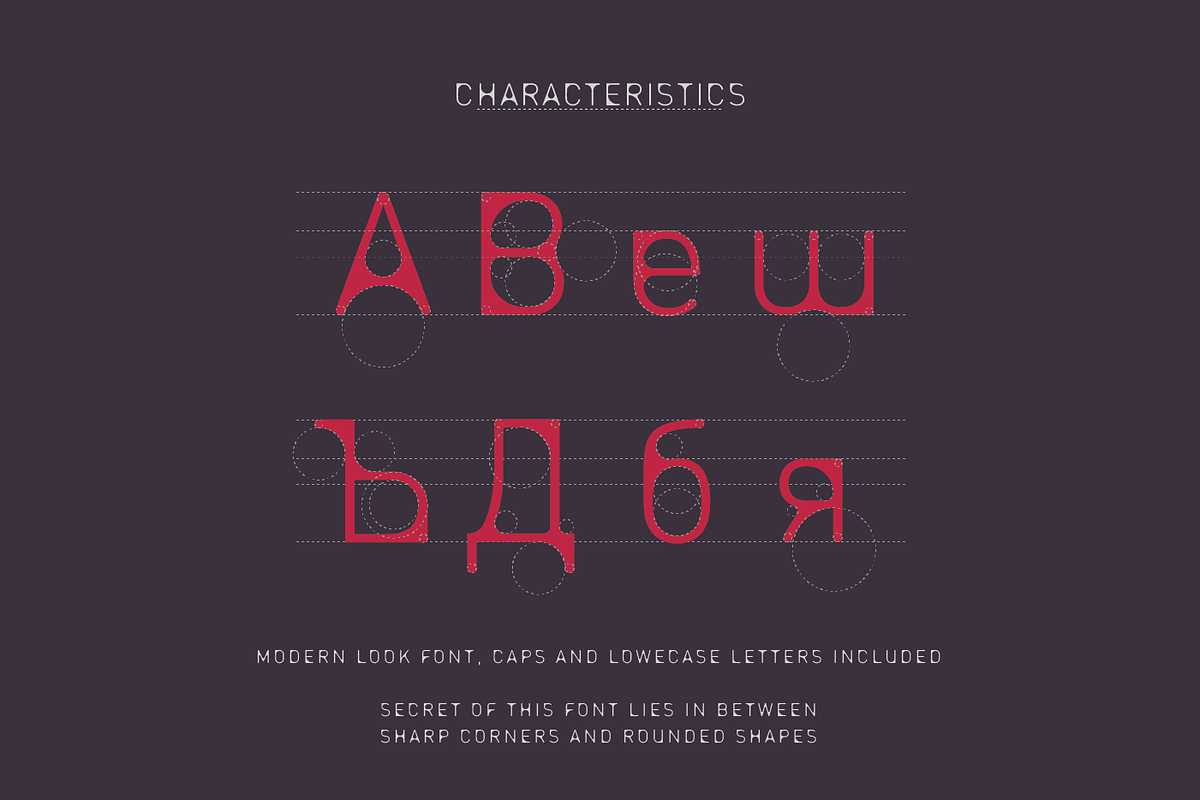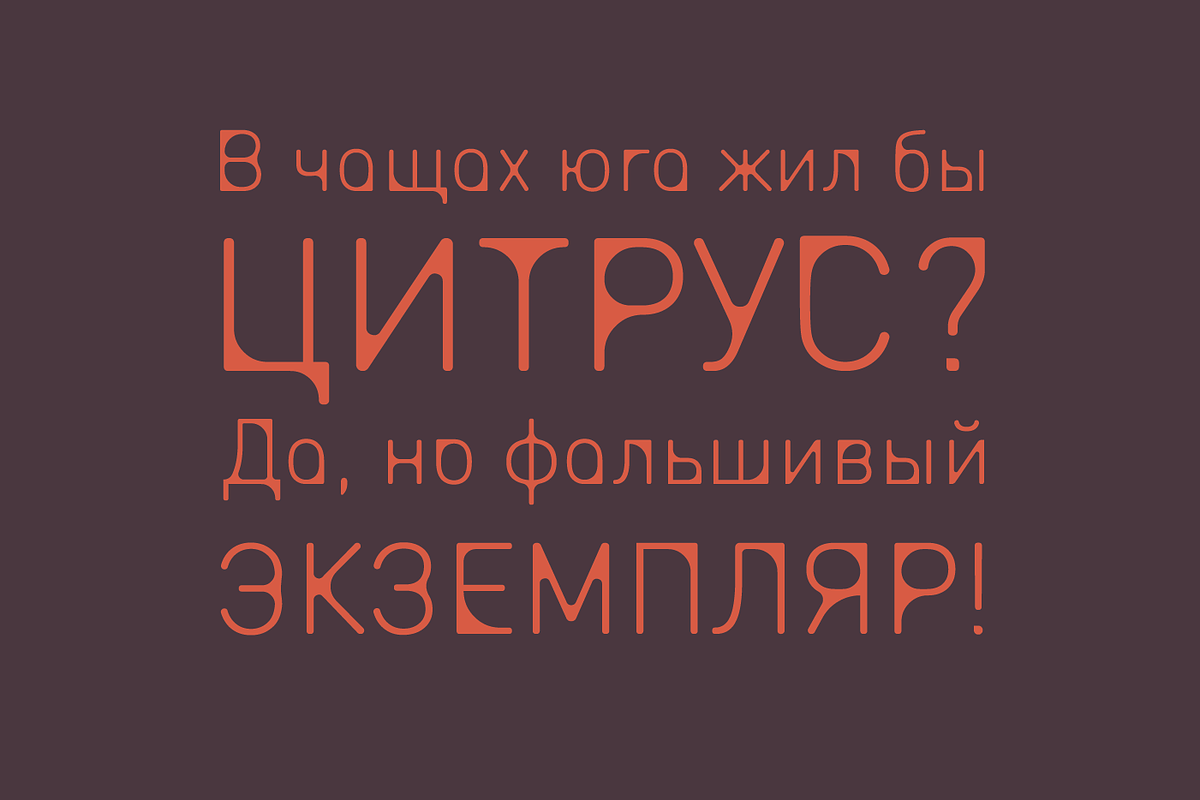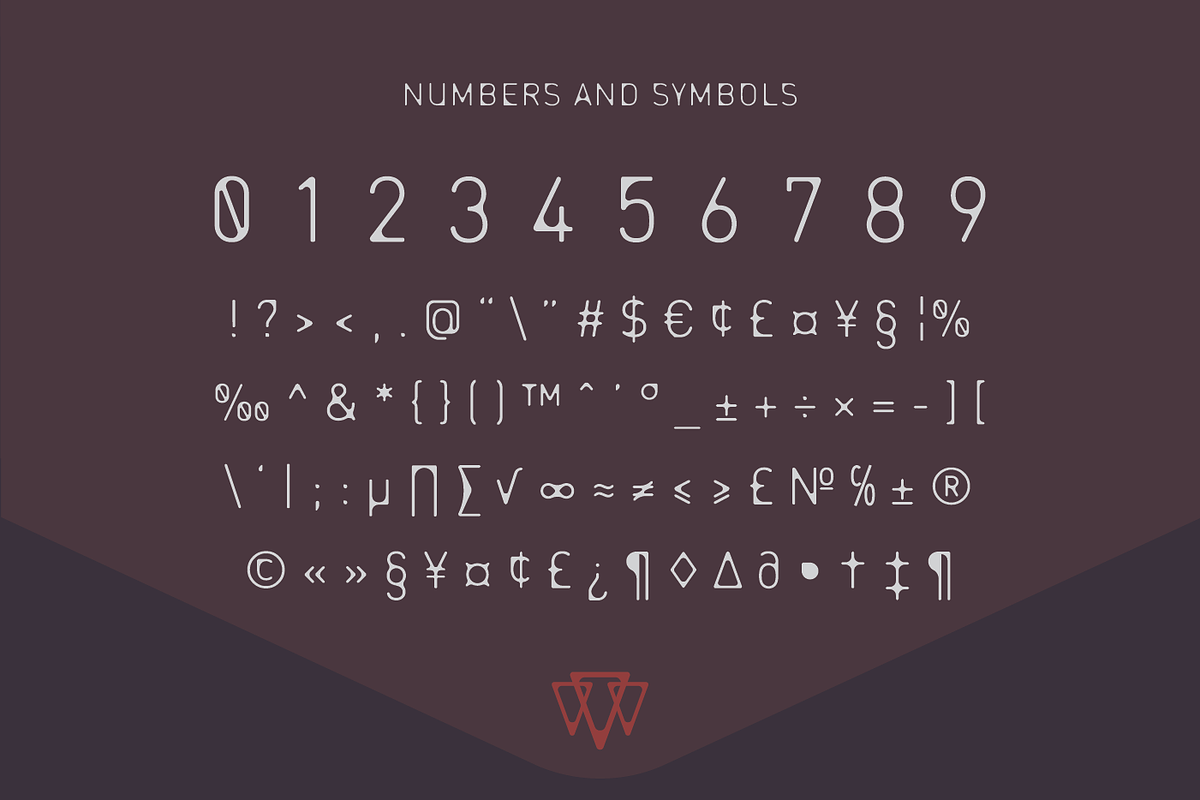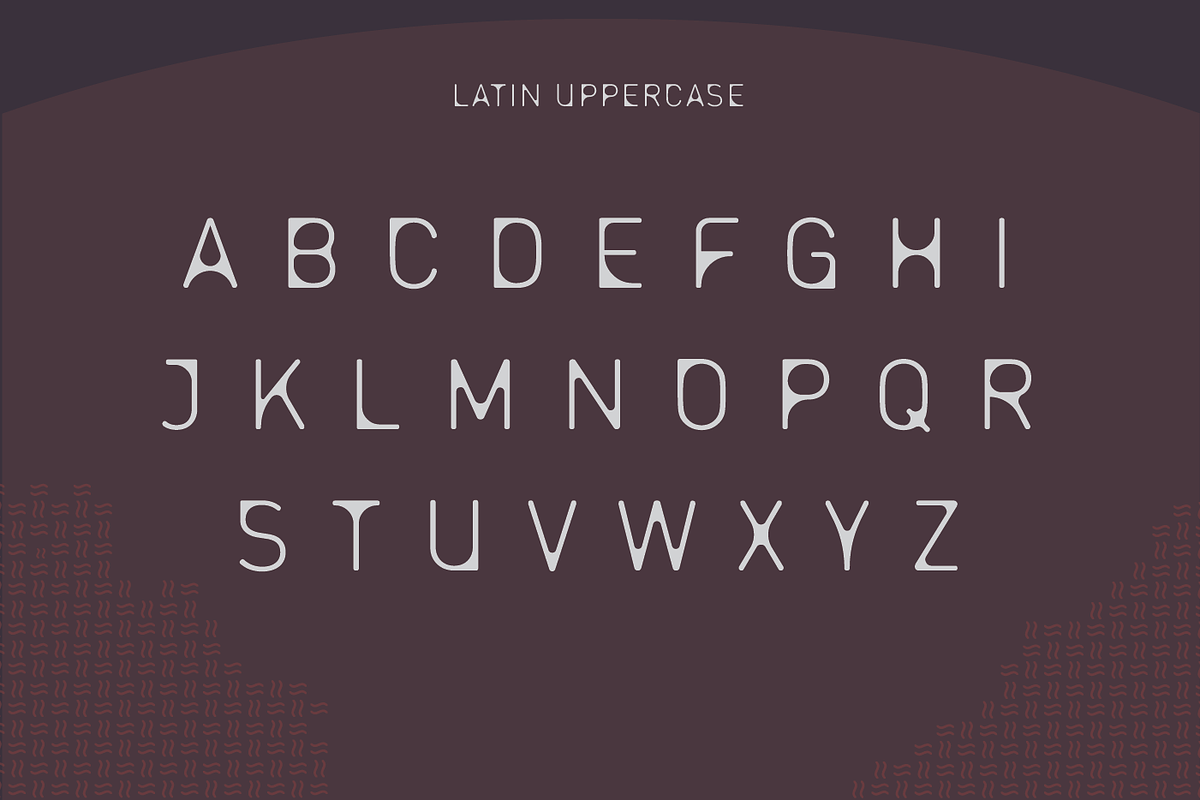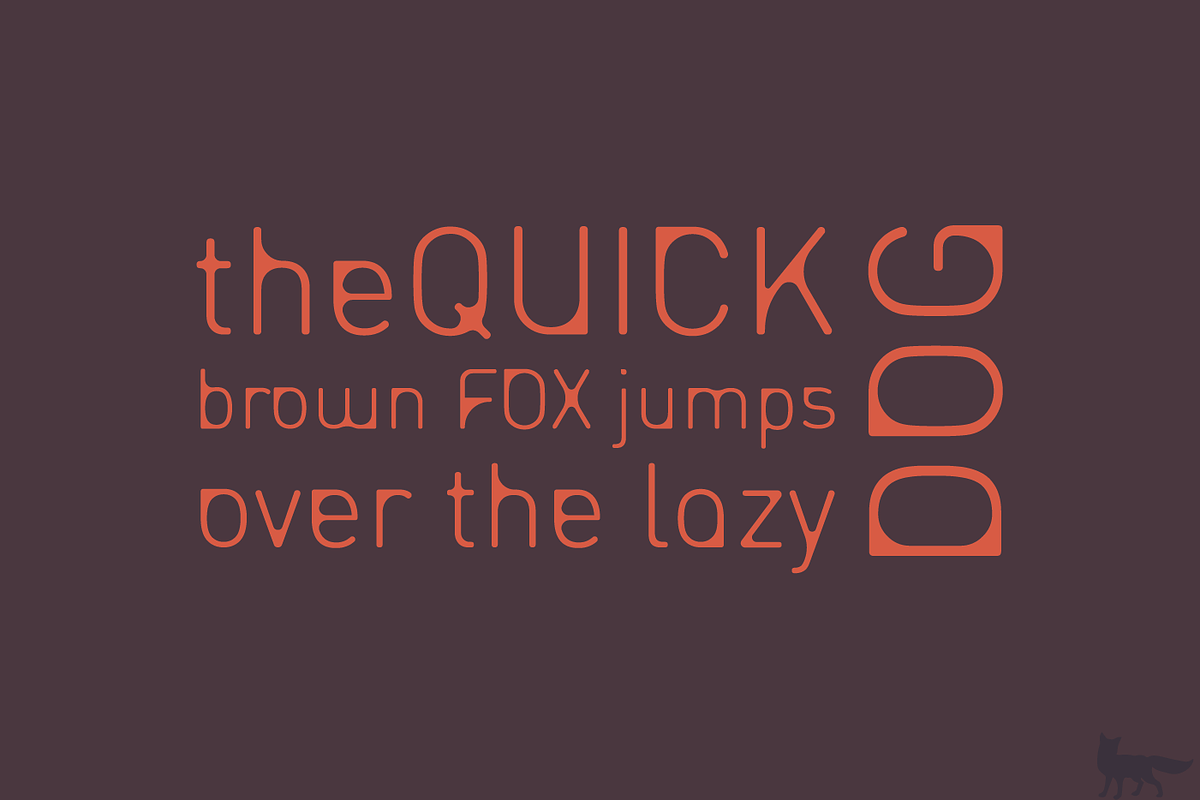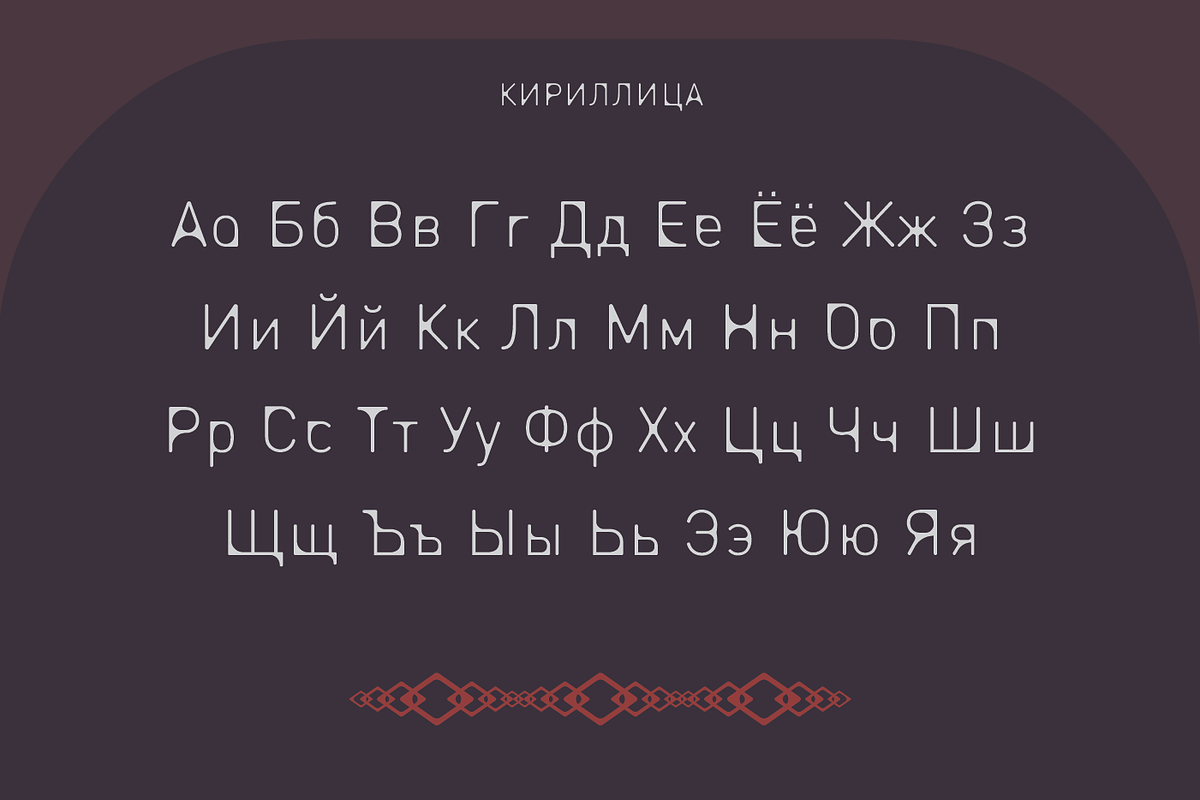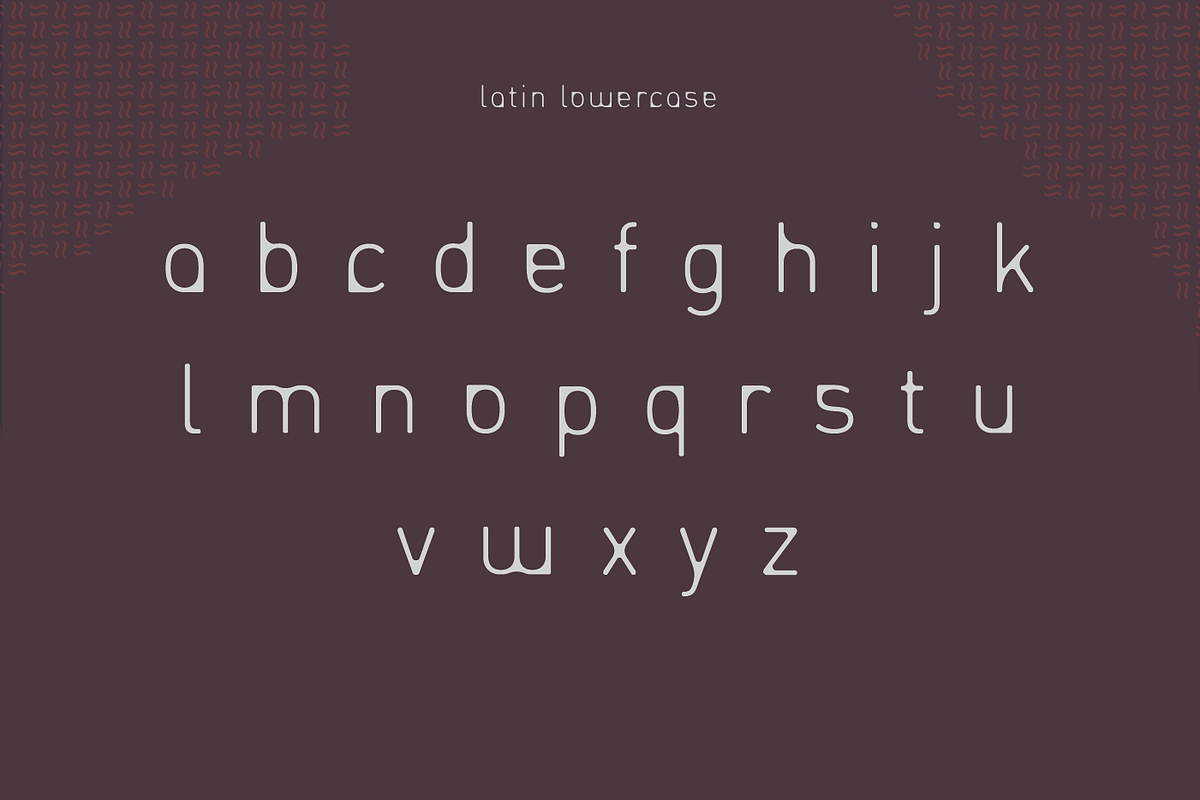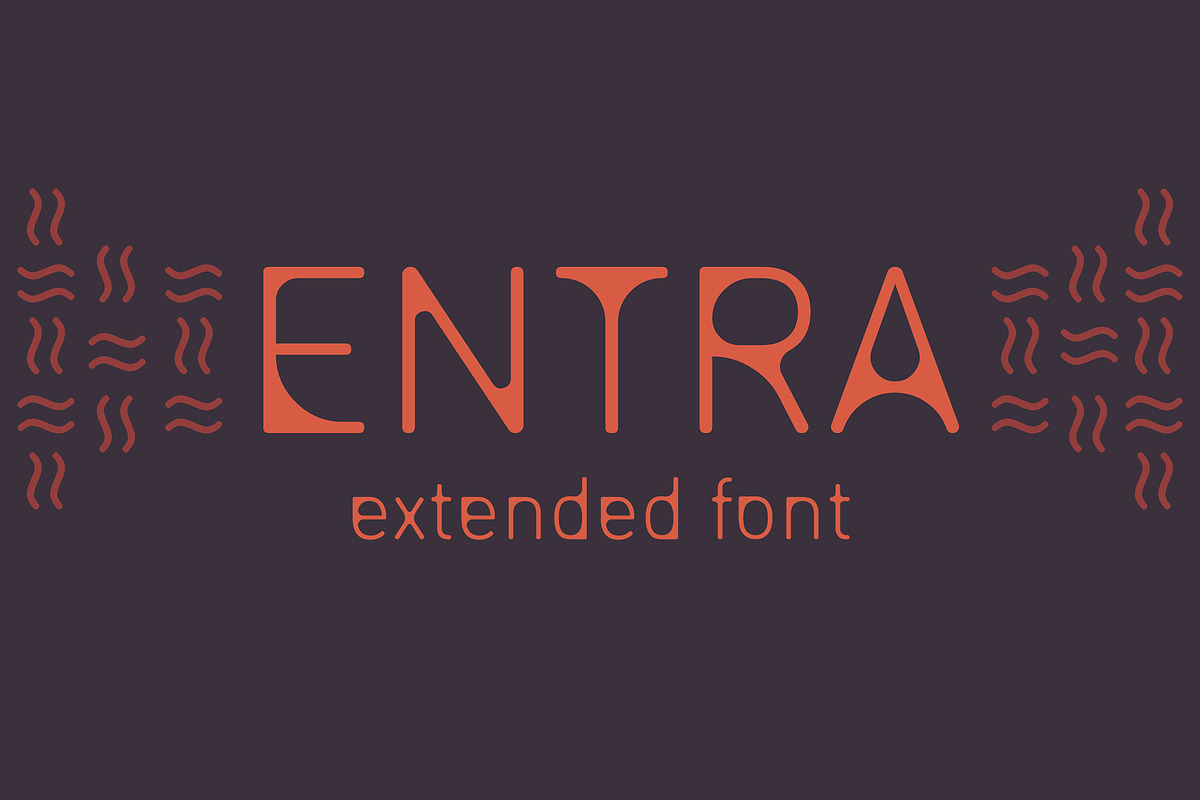
ENTRA Extended Font
ENTRA Extended Font by Wild Ones is a font selected for branding, posters, packaging, typography.
- Entra extended font includes latin, latin extended and cyrillic letters, symbols and numbers.
Why ENTRA Extended Font is worth a look
ENTRA Extended Font by Wild Ones fits naturally into Branding, posters, packaging, typography.